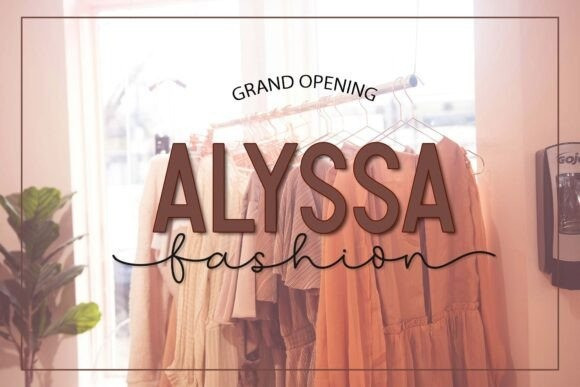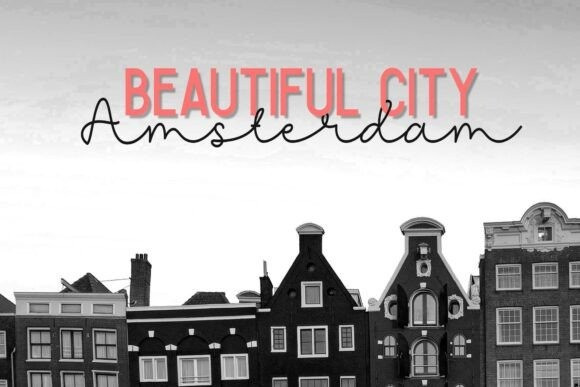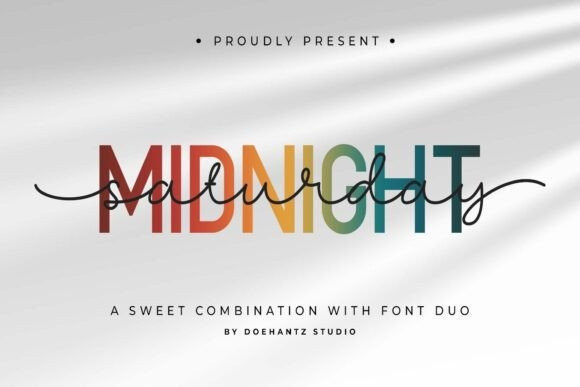
Midnight Saturday Font Duo
Midnight Saturday Font Duo a duo font seamlessly fusing sans serif with script. The artistic blend of these styles injects a vital vibrancy into your designs, flawlessly encapsulating harmony in all its glory. Recognized for its versatility, MidnightSaturday beautifully adapts to a wide array of scenarios. From the grace and elegance needed for wedding invitations, to the strong and unique statement required for brand identities and signatures, this typeface caters to all. Step into a world of typographic delight with Midnight Saturday, your go-to font for creating anything that demands an infusion of charm and charisma through letters.